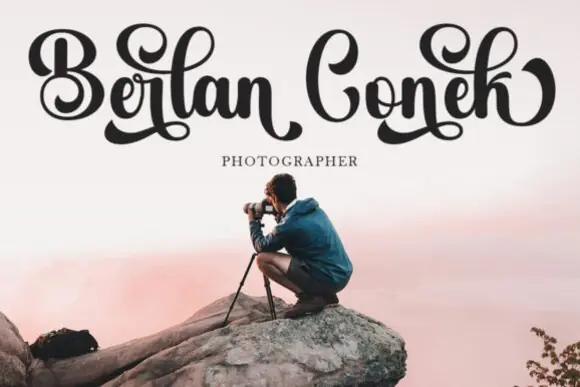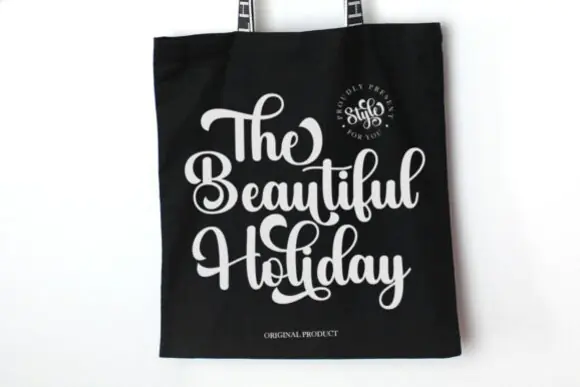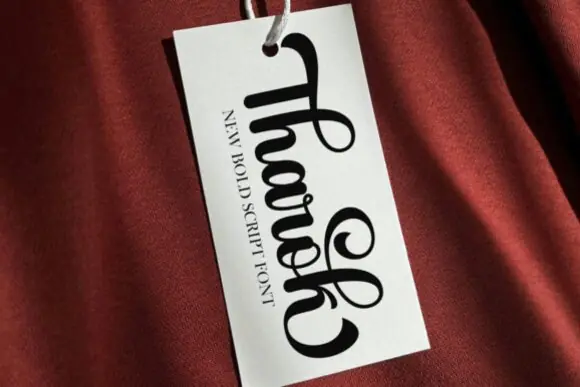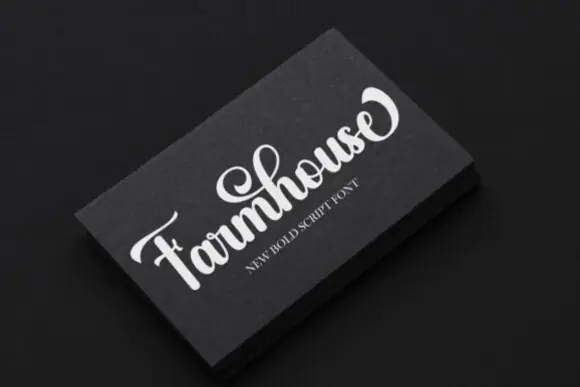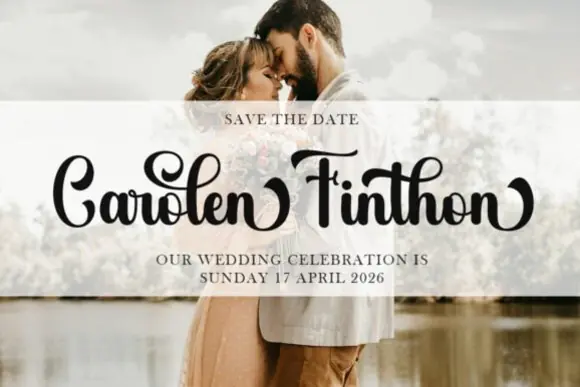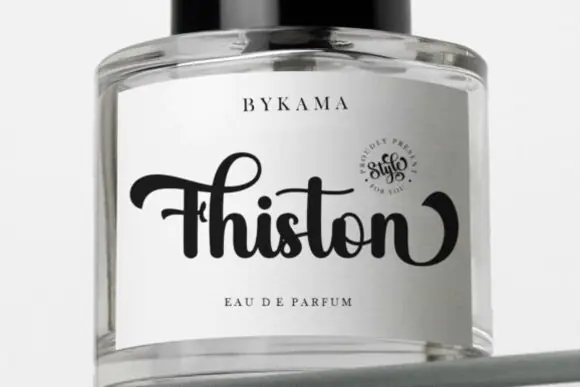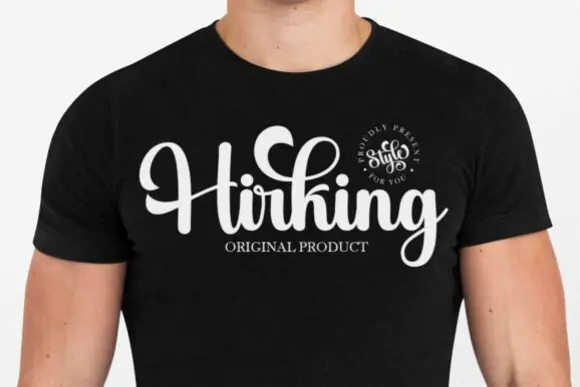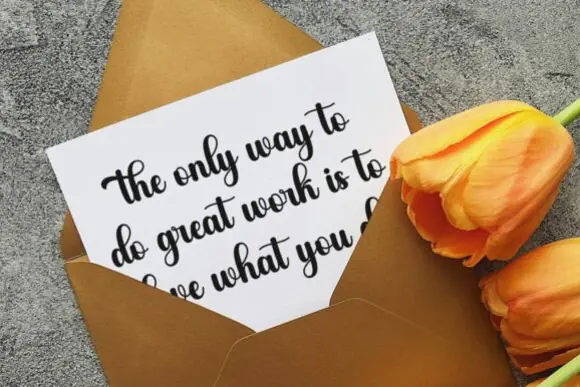
Thick Black Elegant Font – Soft Feminine Typeface for Branding, Logos, Wedding Invitations, Titles, Signs, Labels, Packaging, Boutique Designs & Stylish Creative Projects
Create bold yet graceful designs with Thick Black Font, a stylish typeface that combines softness, elegance, and a feminine visual touch. With its graceful strokes and polished appearance, this font is perfect for making your text stand out while still keeping your design refined, classy, and professional.
This font works beautifully for branding, logo design, wedding designs, invitations, titles, signs, labels, packaging, greeting cards, boutique graphics, fashion designs, beauty product branding, social media posts, printable artwork, and elegant promotional materials. Its stylish character makes it suitable for both personal and commercial creative projects where a soft but eye-catching font is needed.
Whether you are designing a luxury logo, romantic wedding invitation, elegant product label, stylish signage, or feminine brand identity, Thick Black Font adds a premium and sophisticated look to your work. It is especially useful for designers, crafters, wedding creators, small business owners, branding specialists, and digital product sellers who want a font that feels graceful, modern, and visually attractive.
• Soft and elegant font style
• Graceful strokes with a feminine touch
• Bold and stylish appearance
• Perfect for branding, titles, logos, and wedding designs
• Great for signs, labels, invitations, and packaging
• Adds a refined and premium look to designs
• Suitable for digital, printable, and commercial creative projects